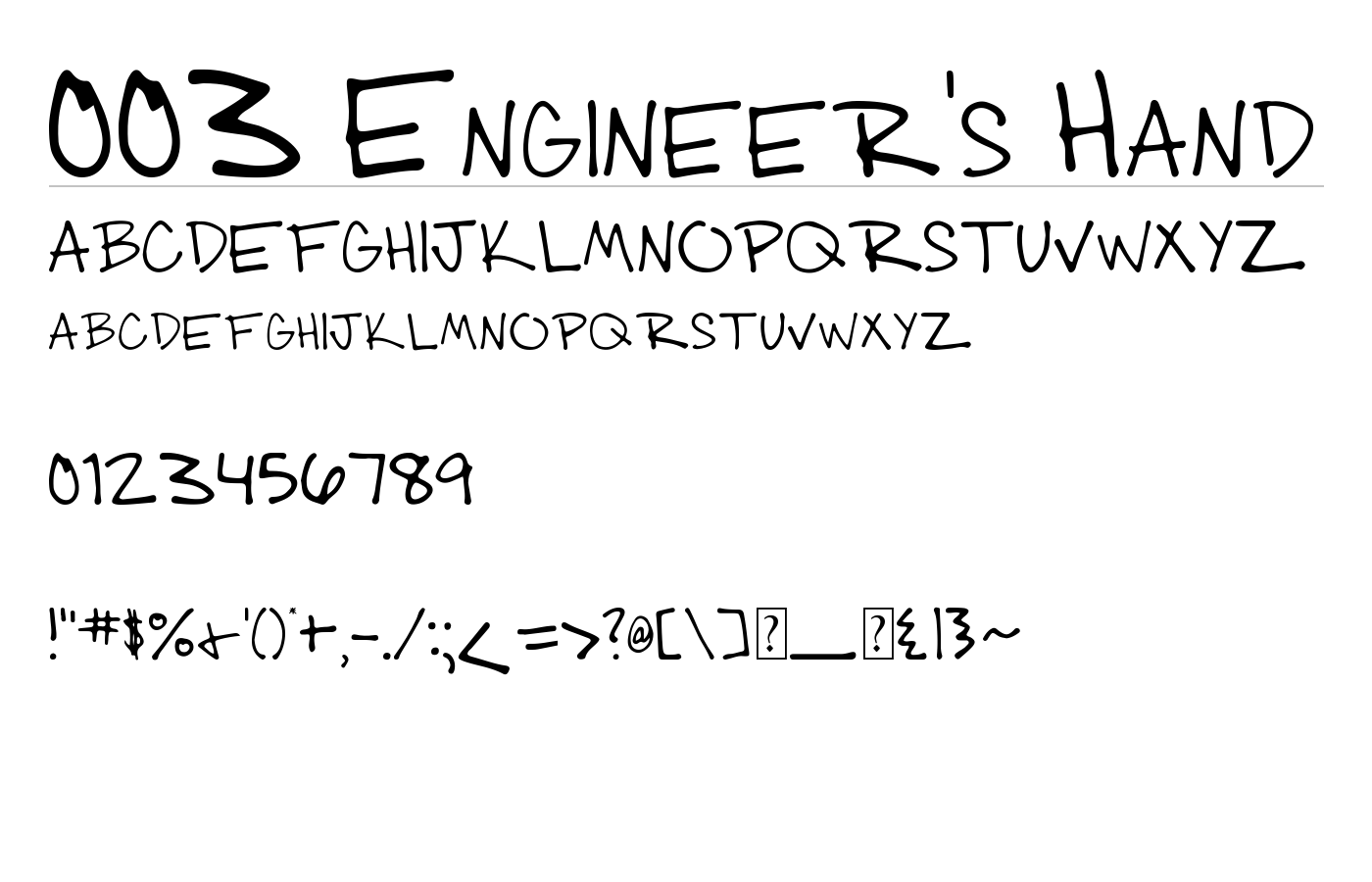
003 Engineer's Hand is a casual, hand-drawn sans serif font that feels playful and approachable with its uneven strokes and slightly irregular letterforms. Its light weight and natural, handwritten style make it ideal for informal designs, creative projects, and branding that benefit from a personal touch. This font works well in headlines, children’s materials, and any context where a friendly, authentic feel is desired.
003 Engineer's Hand Font
About 003 Engineer's Hand Font